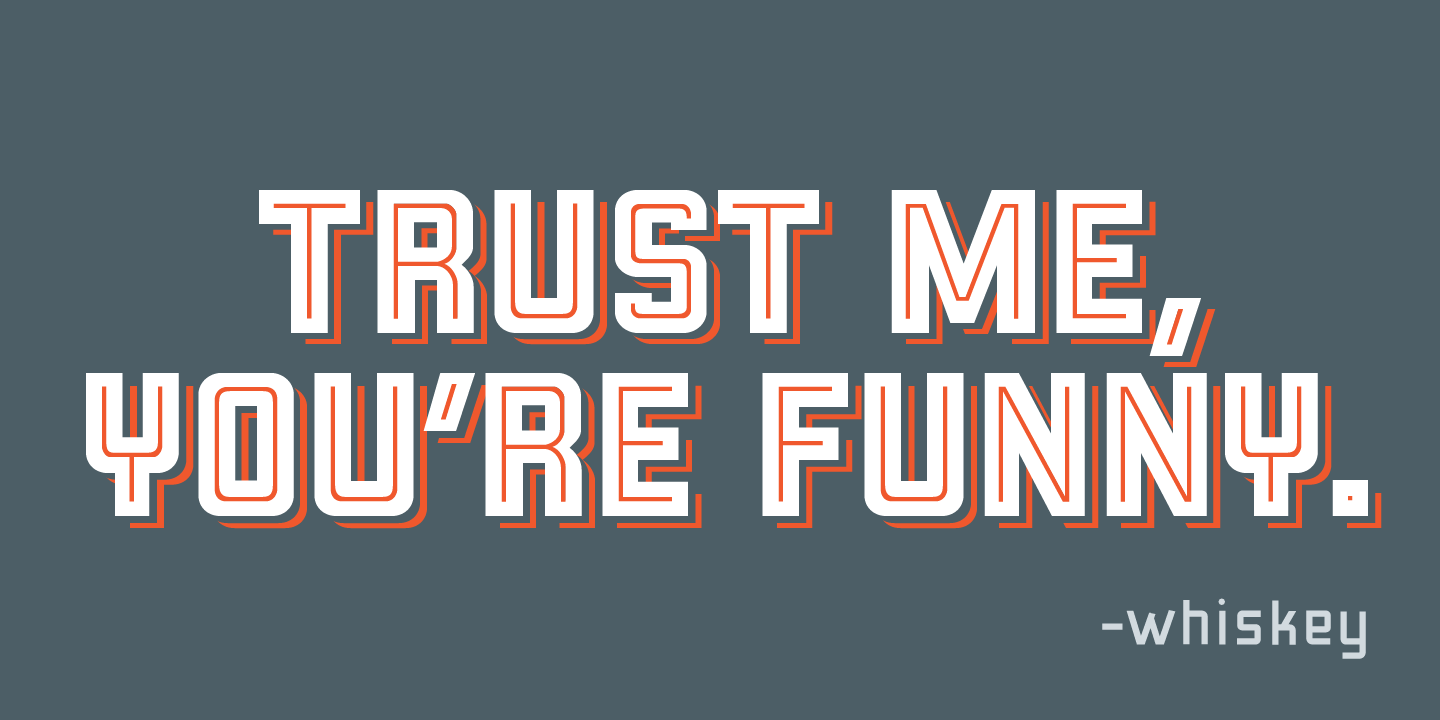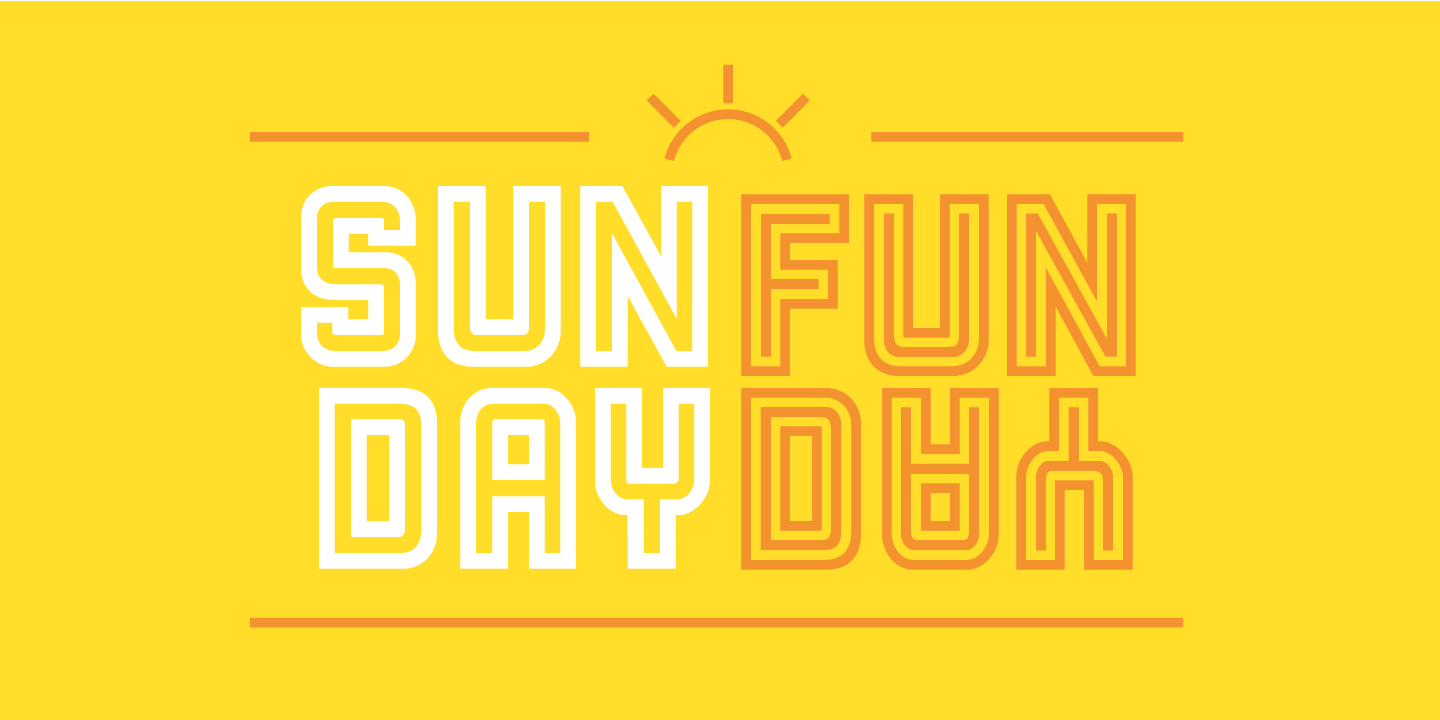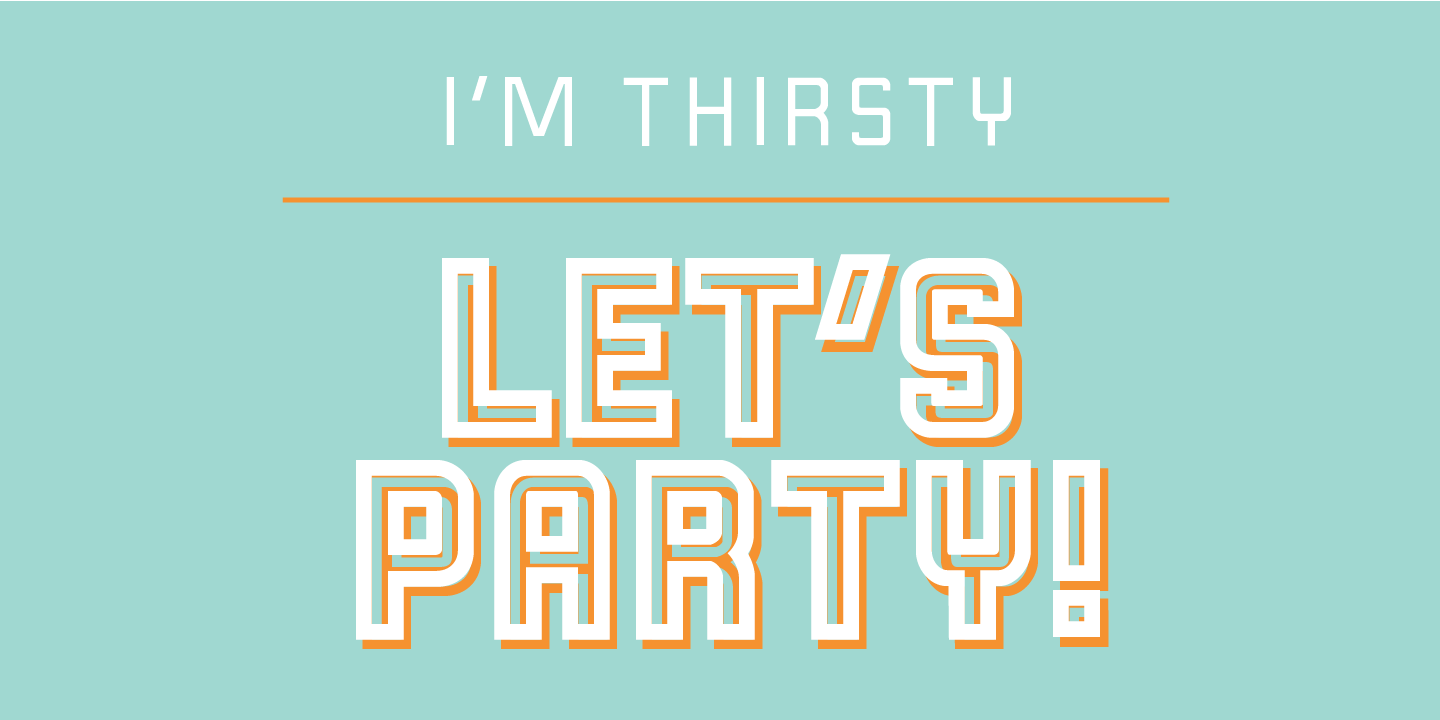
In this modern era, sometimes being bold is not enough. Sometimes you need to go BOLDER! So here comes the Liquorstore Bolder font family, the long awaited sequel to the popular Liquorstore industrial, geometric display font. This new bolder font family features multiple styles that work on their own or as overlapping layers to create stunning multi-color typography. Chromatic layering effects are created with inline, outline, bi-line, and tri-line styles can be used together to create extra impactful words in your logos and headlines.